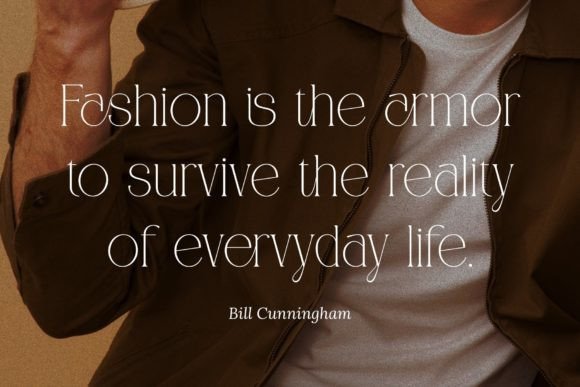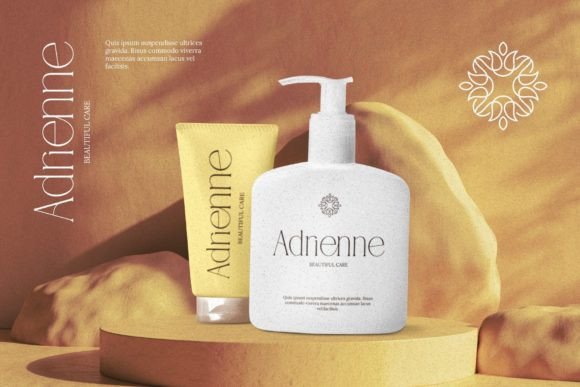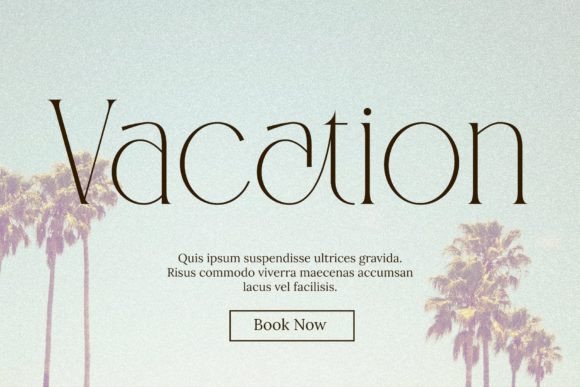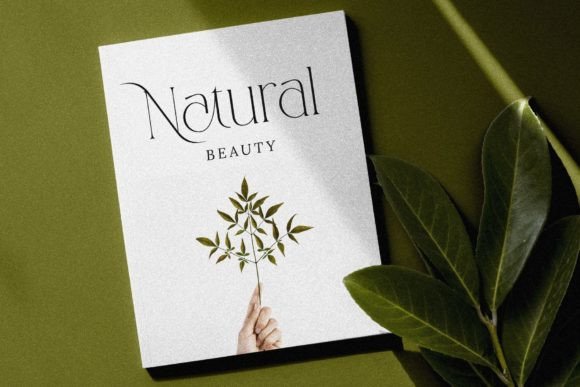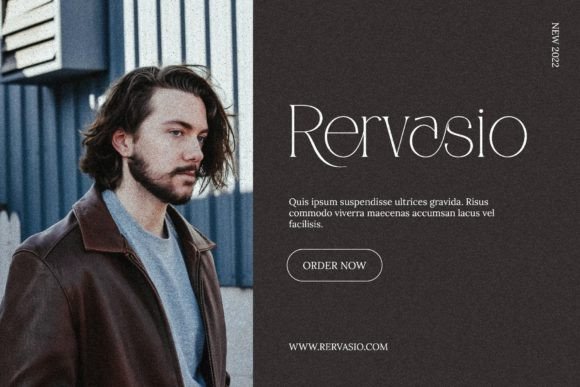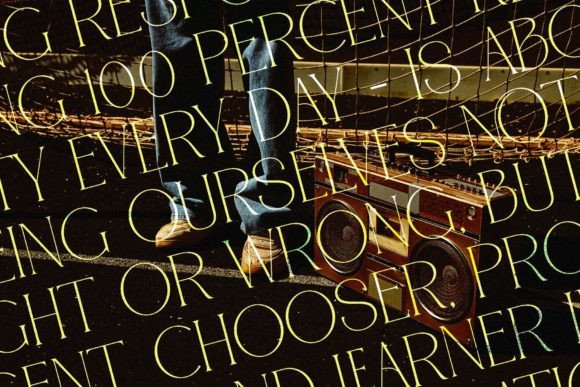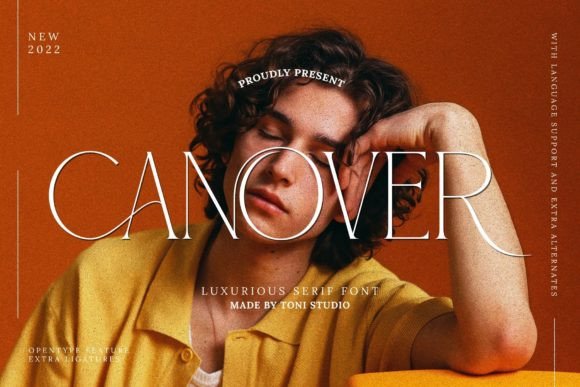
Canover Font: A Modern Ligature Serif Font with a Retro Twist
In the world of typography, fonts play a crucial role in conveying messages, evoking emotions, and setting the tone for a brand or design. With the ever-evolving landscape of design, it’s exciting to come across a font that seamlessly blends modernity with retro charm. Enter Canover Font, a modern ligature serif font that’s making waves in the design community. In this article, we’ll dive into the world of Canover Font, exploring its unique features, inspiration, and uses.
A Modern Ligature Serif Font with a Unique Personality
Canover Font is a modern ligature serif font that boasts soft curves and high-contrast glyphs, giving it a distinctive personality that’s both feminine and masculine. This unique blend of characteristics makes it an excellent choice for designers looking to add a touch of sophistication and elegance to their projects. The font’s ligatures and glyphs are carefully crafted to create a sense of fluidity and continuity, making it perfect for body text, headlines, and display text.
Inspired by Magazine Ads from the ’70s and ’80s
Canover Font draws inspiration from the iconic magazine ads of the ’70s and ’80s, bringing a retro vibe into the 21st century. The font’s design is reminiscent of a bygone era, with its classic serif lines and elegant curves. However, Canover Font is not just a nostalgic nod to the past; it’s a modern take on traditional typography, with a fresh and contemporary twist. This blend of old and new makes Canover Font an excellent choice for designers looking to create unique and eye-catching designs.
One of the standout features of Canover Font is its PUA (Private Use Area) encoding. This means that designers can access all the amazing glyphs and ligatures with ease, making it simple to incorporate them into their designs. The PUA encoding allows for effortless navigation and selection of glyphs, saving designers time and effort. With Canover Font, you can unlock a world of creative possibilities and take your designs to the next level.
Canover Font is an excellent choice for designers and crafters looking to add a touch of elegance and sophistication to their projects. Whether you’re working on a branding project, creating a logo, or designing a brochure, Canover Font is the perfect companion. Its versatility and flexibility make it suitable for a wide range of applications, from digital designs to print materials.
Why Choose Canover Font?
So, why choose Canover Font over other fonts? Here are just a few reasons:
- Unique Personality: Canover Font has a distinctive personality that’s both feminine and masculine, making it perfect for a wide range of designs.
- Retro Charm: The font’s inspiration from magazine ads of the ’70s and ’80s gives it a retro vibe that’s sure to turn heads.
- PUA Encoded: The PUA encoding makes it easy to access all the glyphs and ligatures, saving designers time and effort.
- Versatile: Canover Font is suitable for a wide range of applications, from digital designs to print materials.
In conclusion, Canover Font is a modern ligature serif font that’s making a statement in the design world. Its unique personality, retro charm, and PUA encoding make it an excellent choice for designers and crafters looking to add a touch of elegance and sophistication to their projects. Whether you’re working on a branding project, creating a logo, or designing a brochure, Canover Font is the perfect companion. So, why not give Canover Font a try and experience the world of creative possibilities it has to offer?